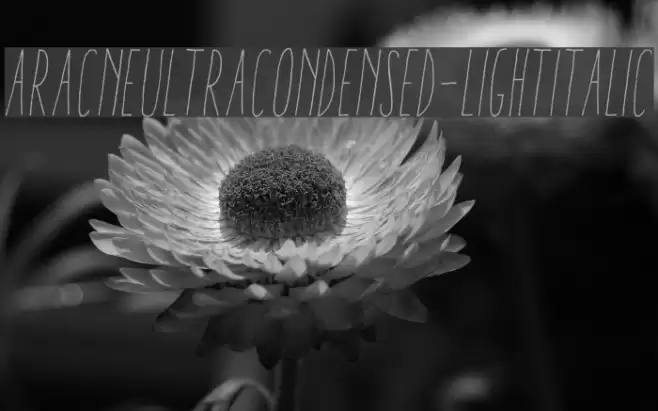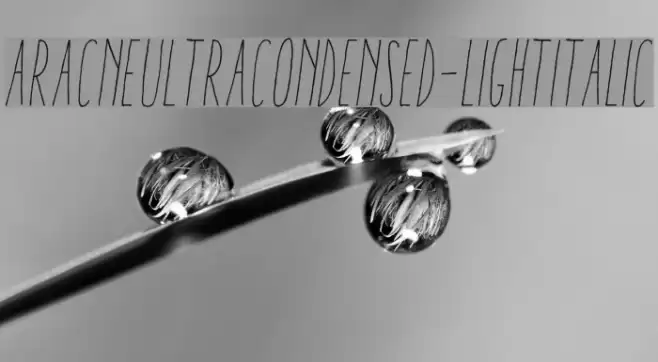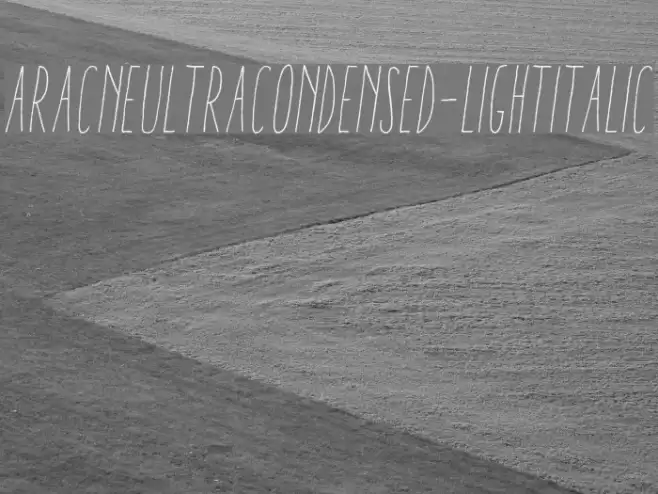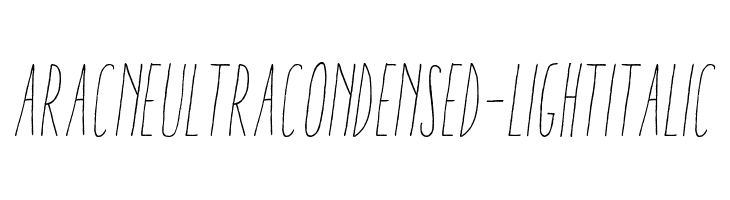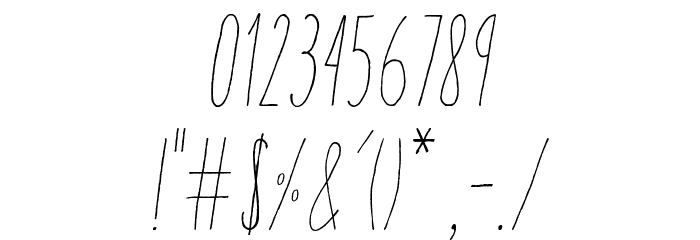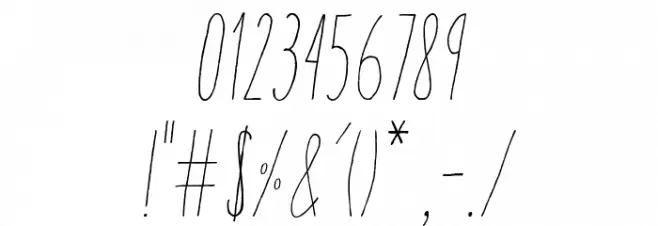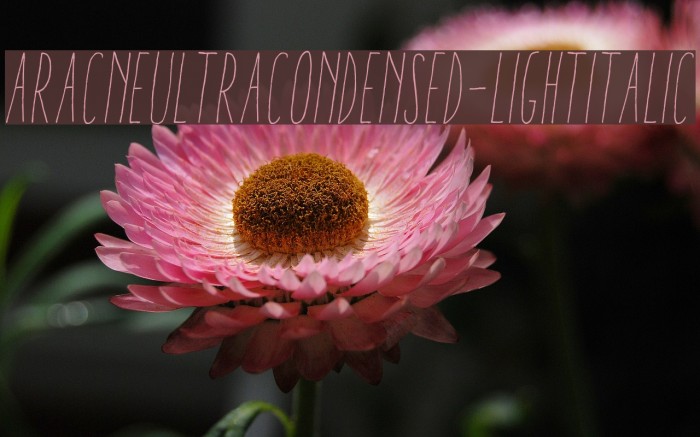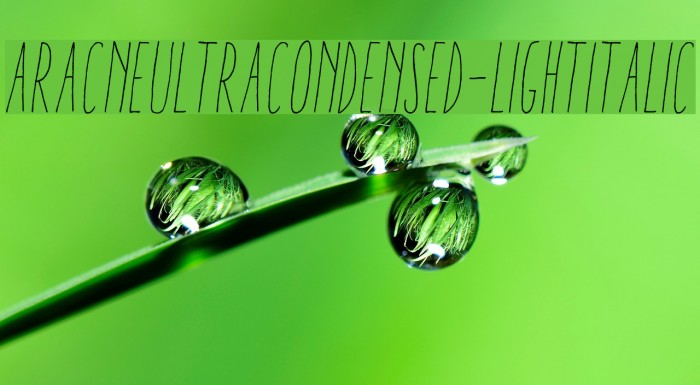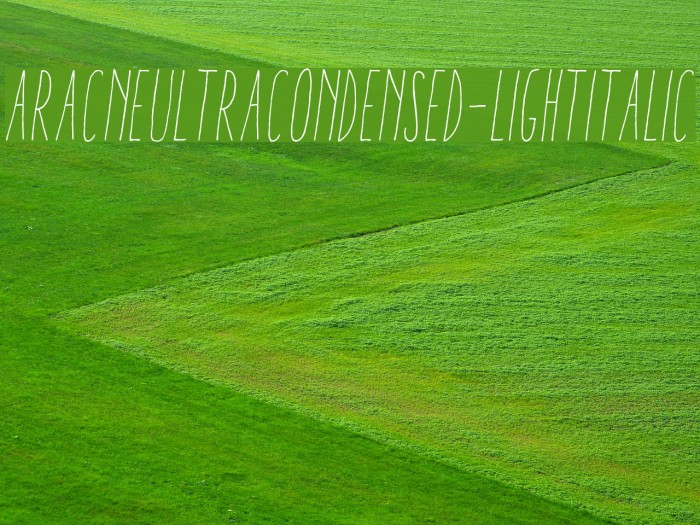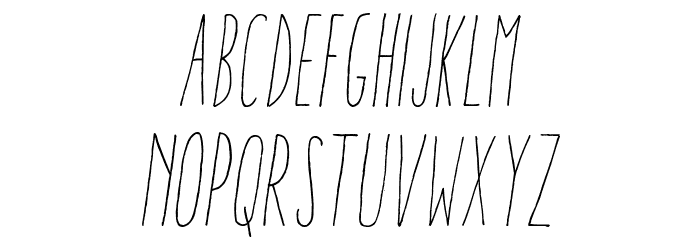
AracneUltraCondensed-LightItalic Font
AracneUltraCondensed-LightItalic Description
This font features an ultra-condensed and light design with a distinct italic slant. The characters are elongated and narrow, giving a sleek and modern appearance. The strokes are thin and consistent, contributing to a delicate and airy feel. Despite its lightness, the font maintains legibility, making it suitable for various creative applications. The overall style is minimalistic yet expressive, with a touch of elegance that can enhance visual appeal in design projects.
A sleek, ultra-condensed, light italic font with a modern and minimalistic style from Handwritten fonts.
- Font: AracneUltraCondensed-LightItalic
by antipixel - Weight: Ultra-condensed Light Italic